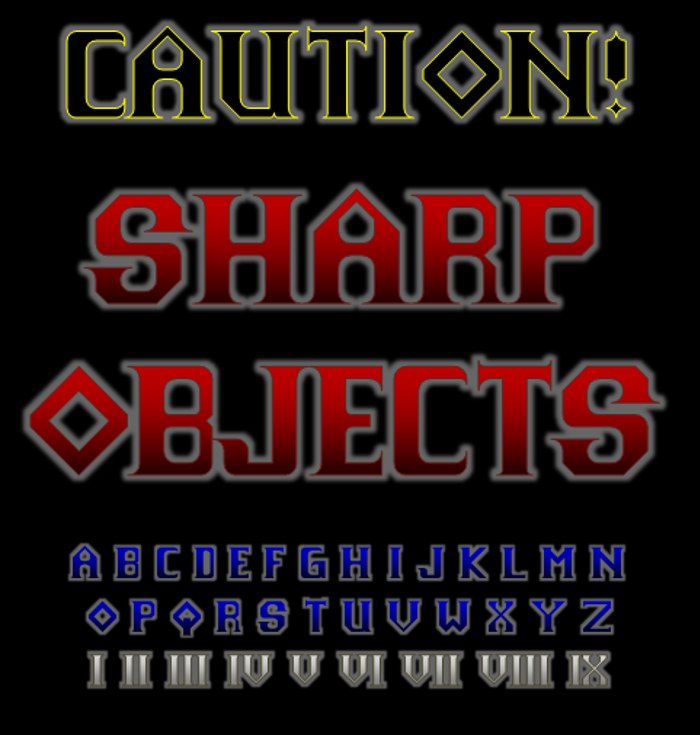
Sharp Objects NBP Font
Who said you shouldn't play with sharp objects? Numbers are Roman Numerals (accurate up to 9, beyond that just use IXVCL and M)